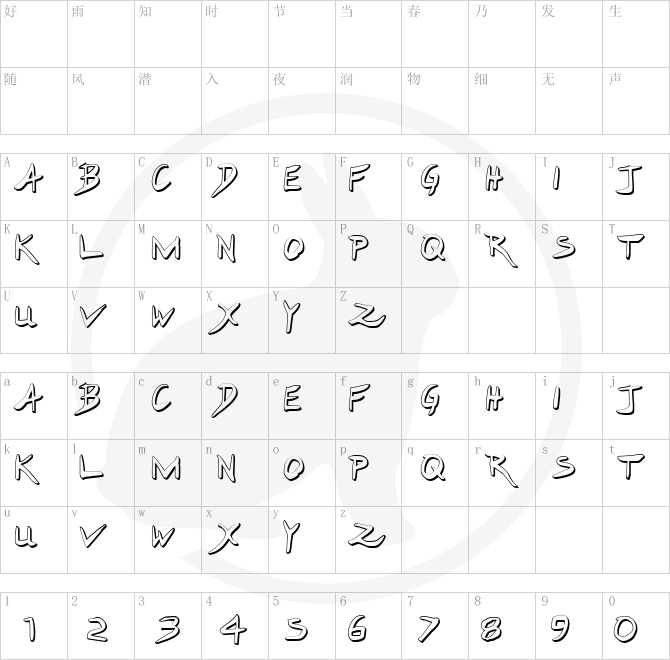
- Font Name:Hakturus 3D
Hakturus-3D-Regular.ttf is a very beautiful artistic font, Hakturus-3D-Regular.ttf is widely used in the design and printing of various books and pictures,Hakturus-3D-Regular.ttf has a strong visual impact,Hakturus-3D-Regular.ttf is a commonly used font in newspapers, magazines and books, and is used in posters, e-commerce Poster design, store design, logo design, font design and other fields.Hakturus-3D-Regular.